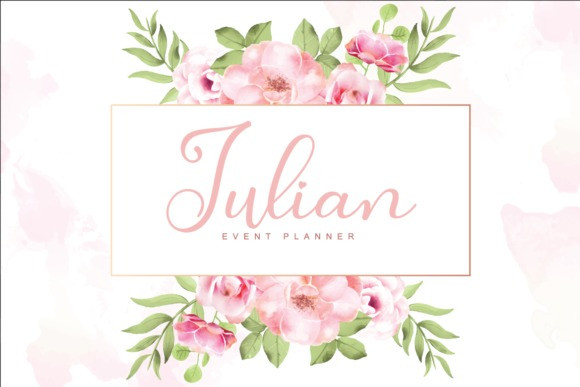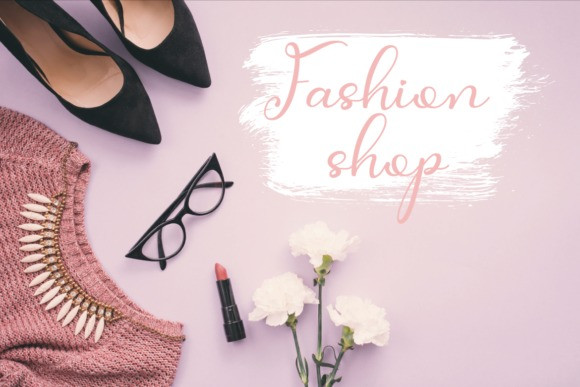
Nielsen Owen Handwritten Font
Nielsen Owen font duo is a match made in heaven, the script style perfectly complements the handwritten’s style. Combining these two fonts on your next design will give a balanced and modern feel.
This versatility means that this font can be used in a wide variety of applications from logos, to stationery- the only limit is your imagination!
It will elevate a wide range of design projects to the highest level, be it branding, headings, wedding designs, invitations, signatures, logos, labels, and much more!